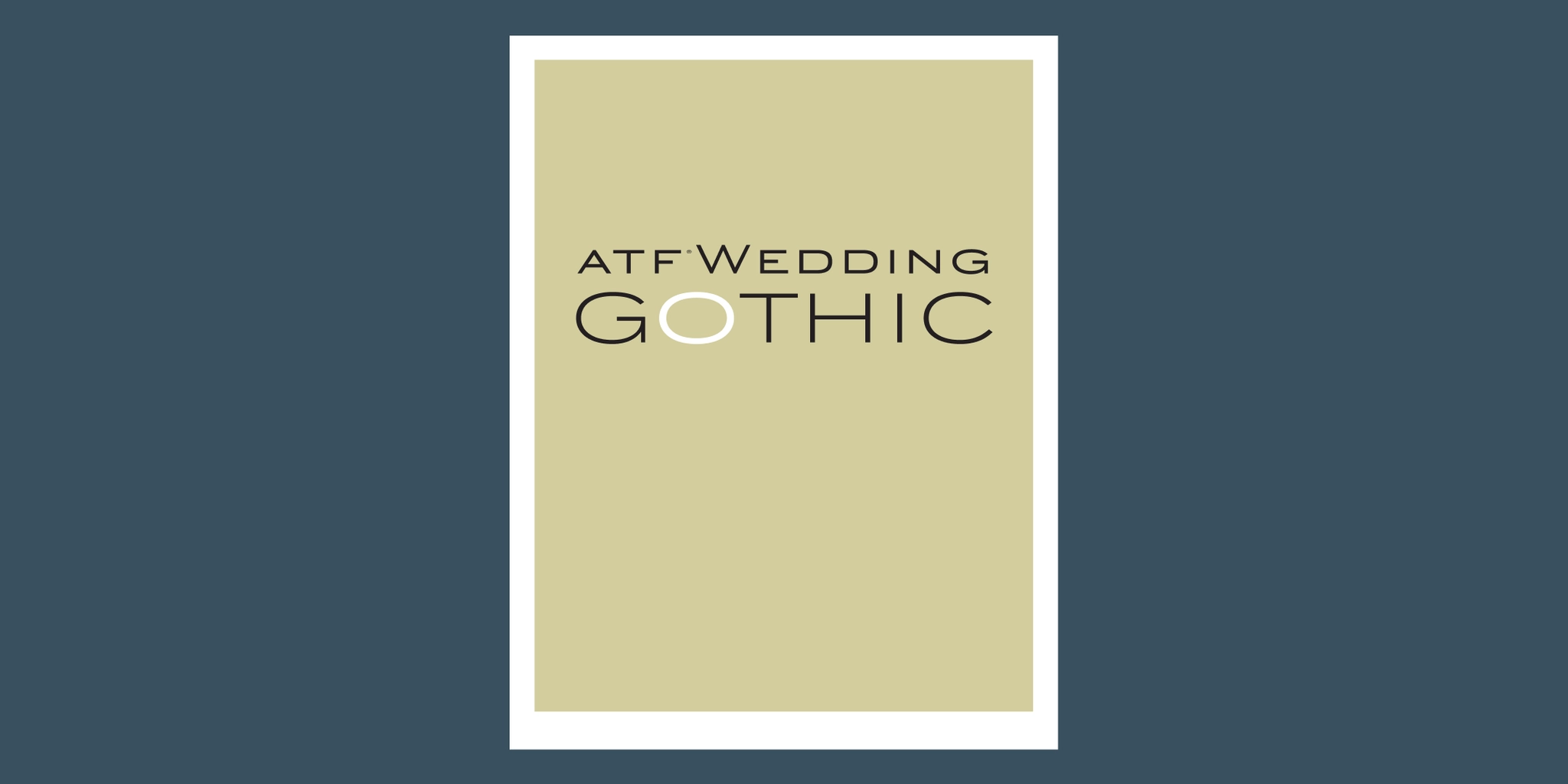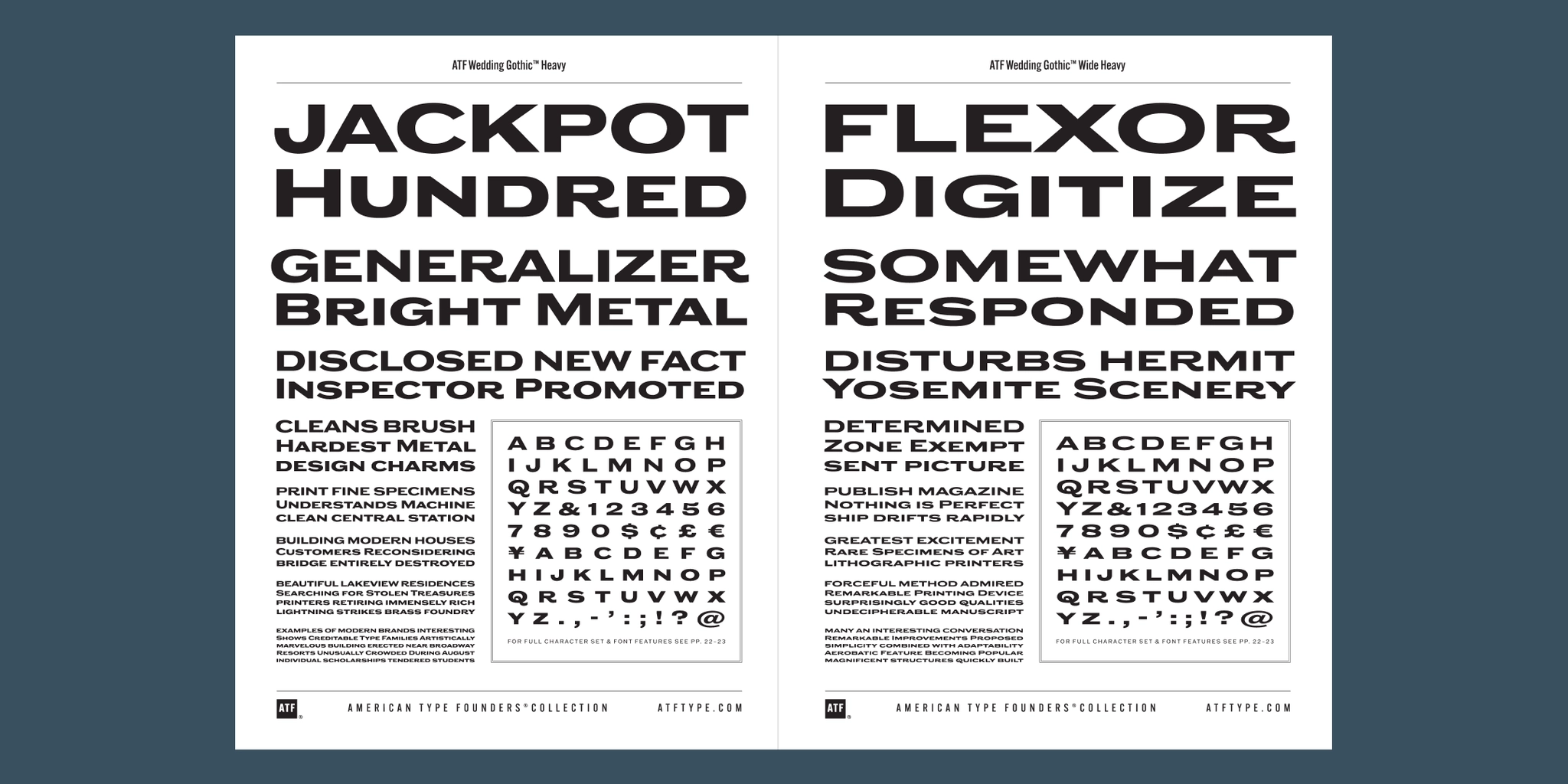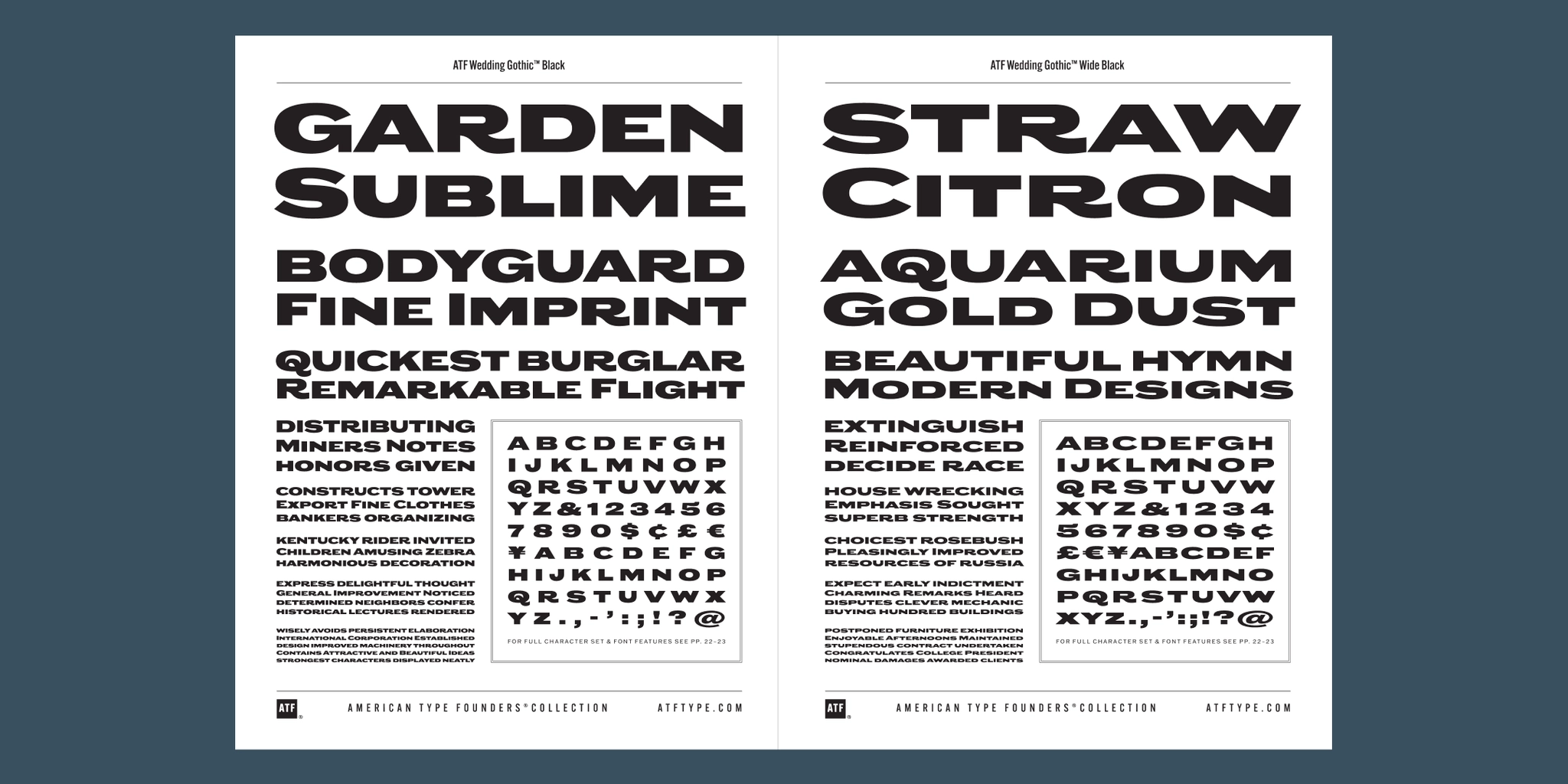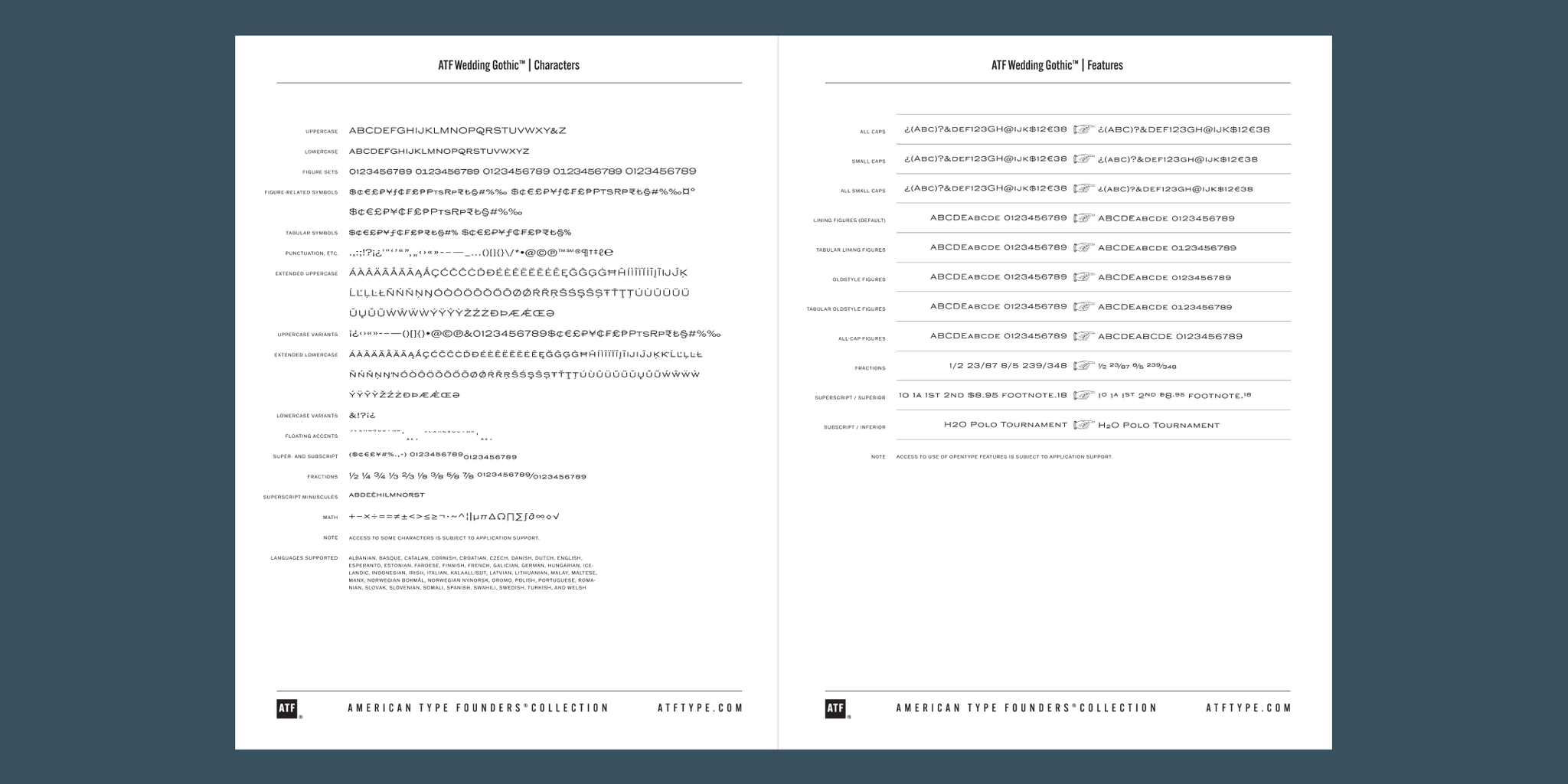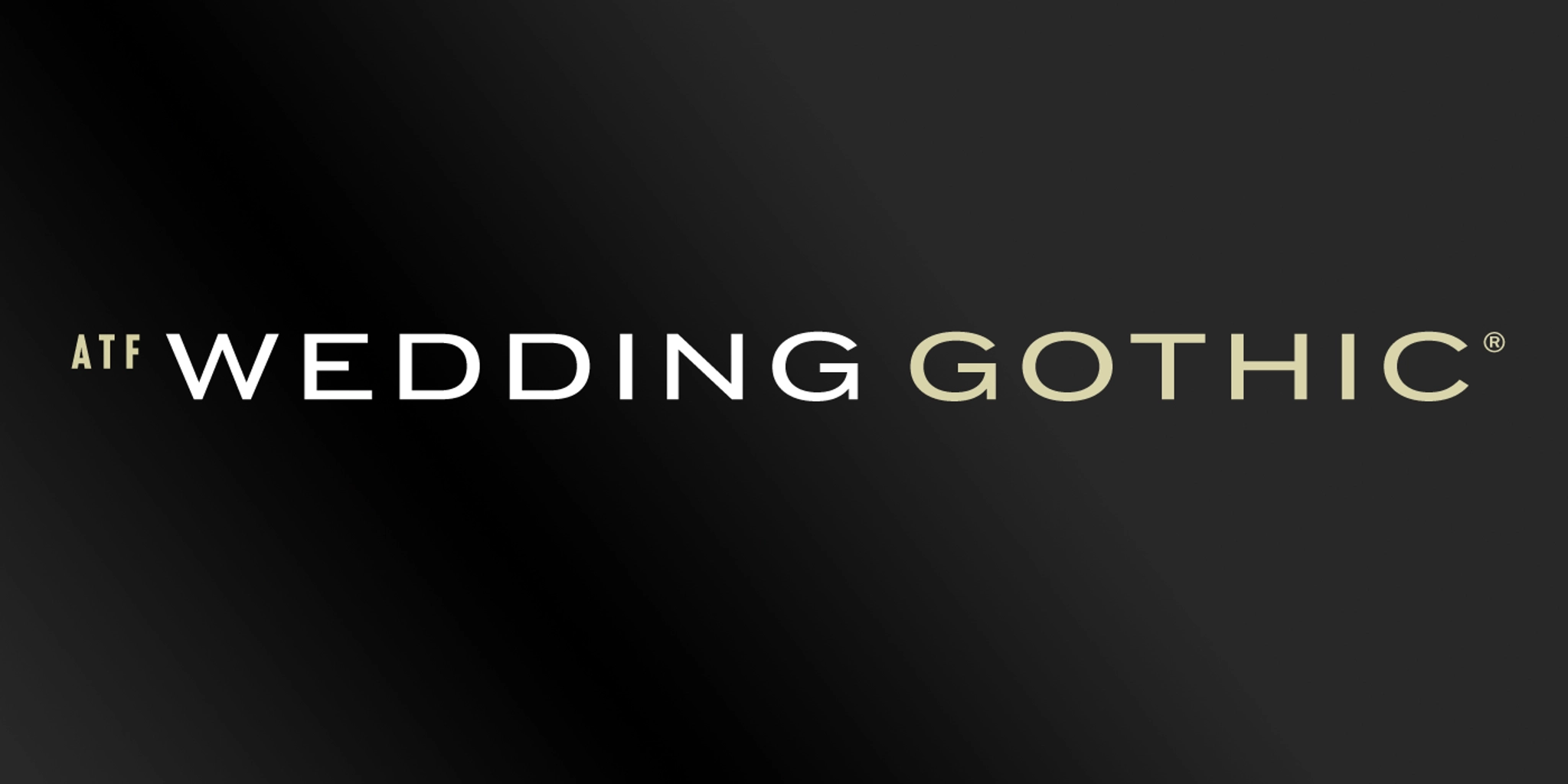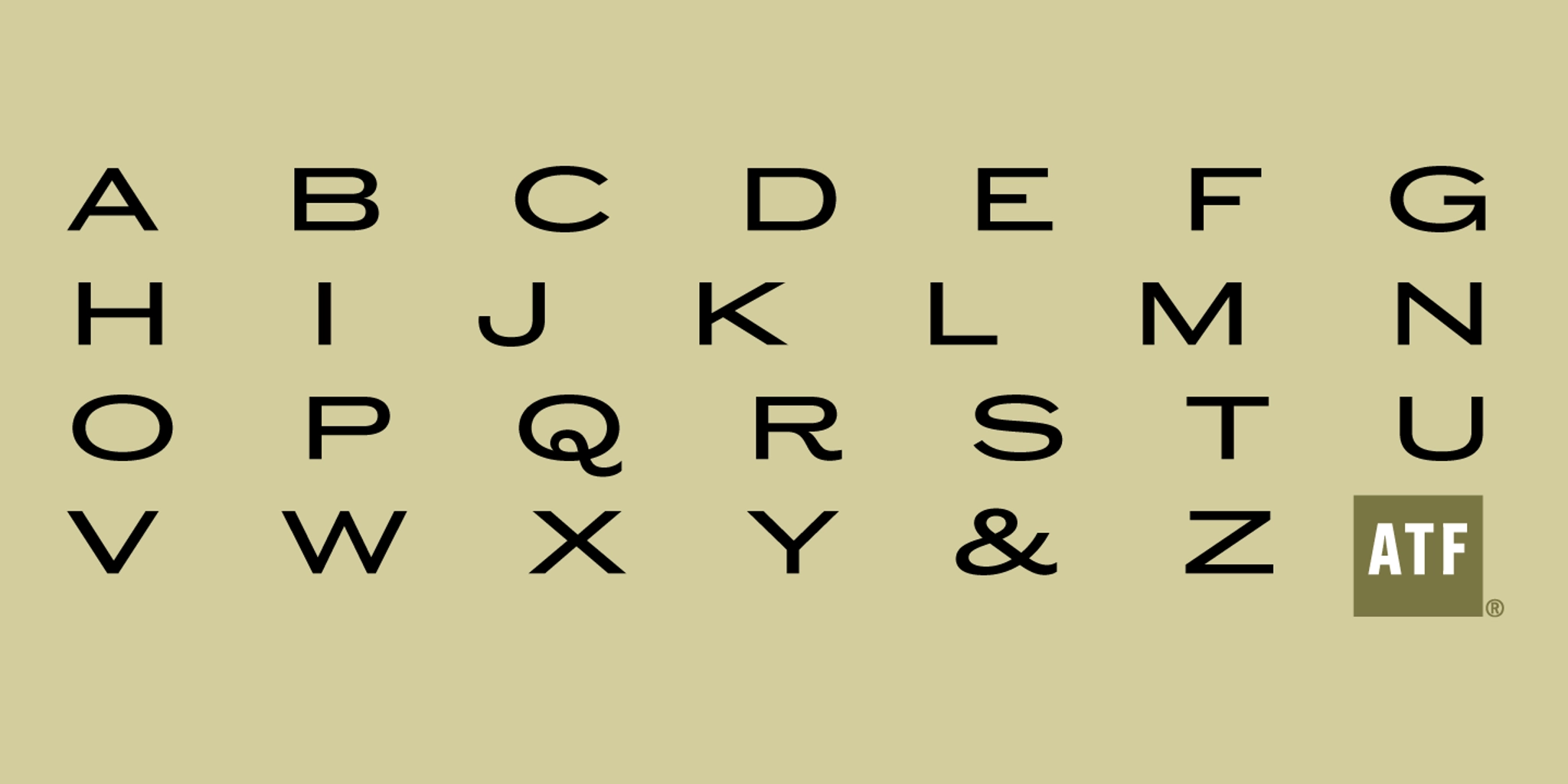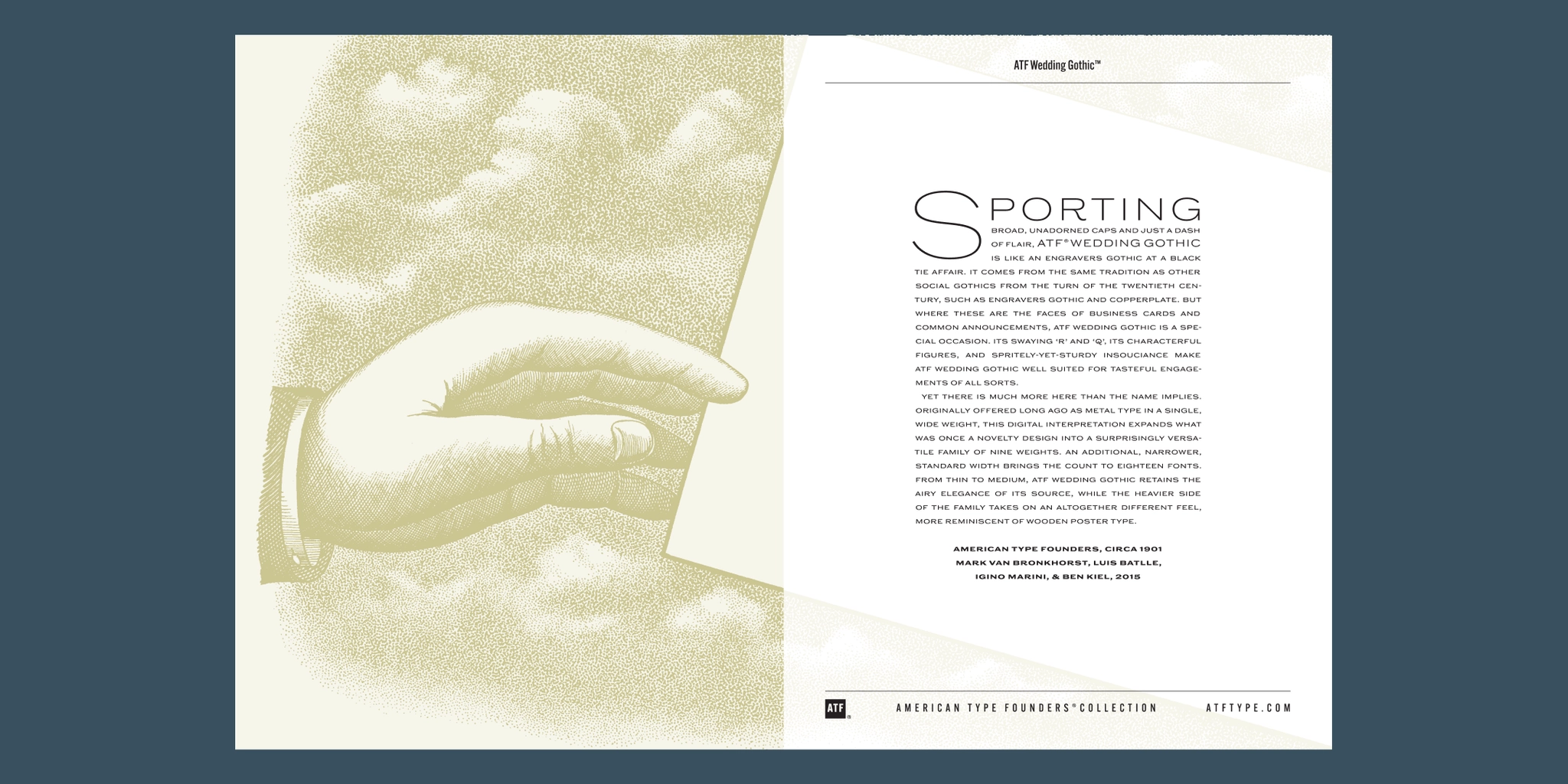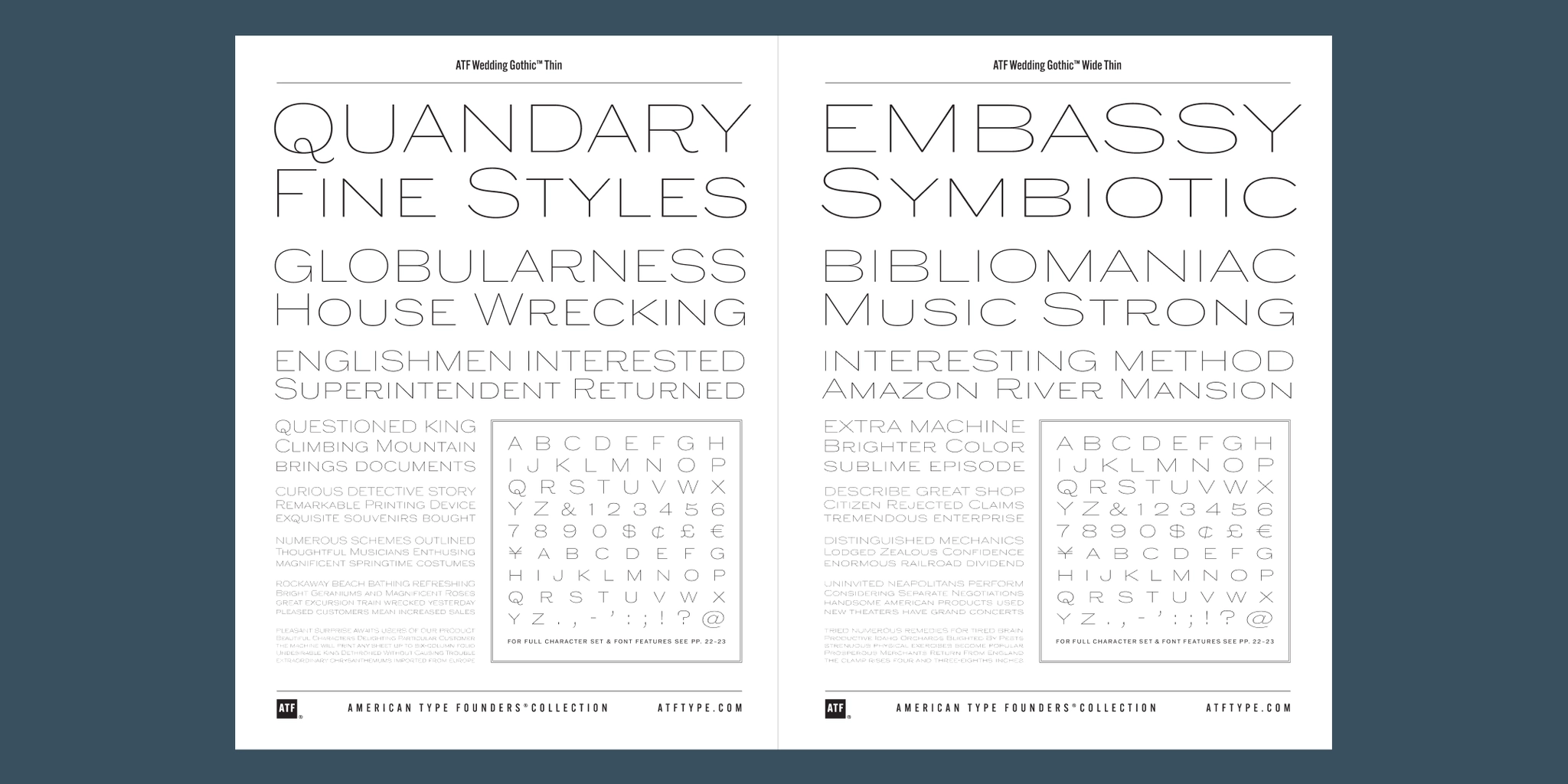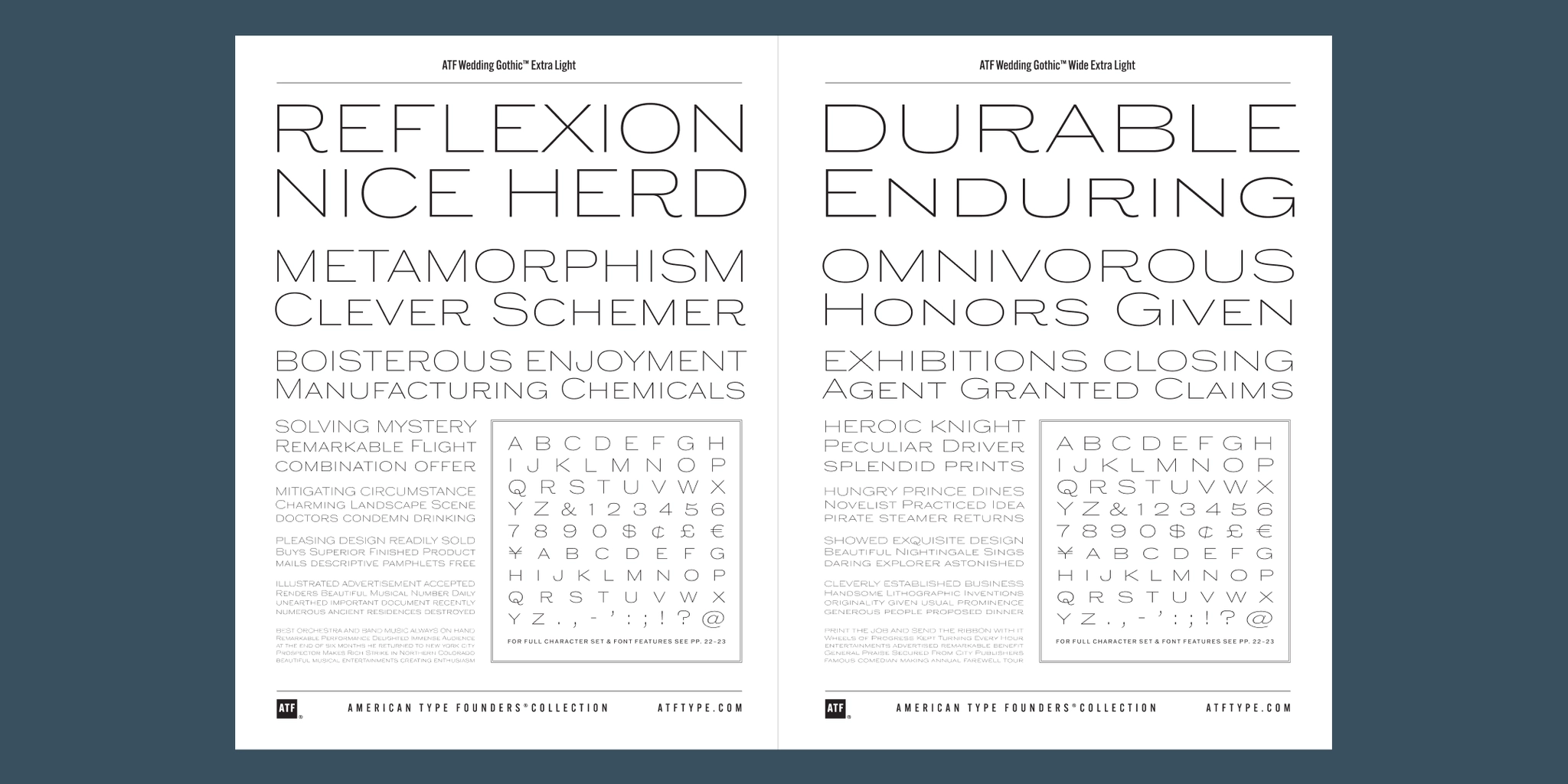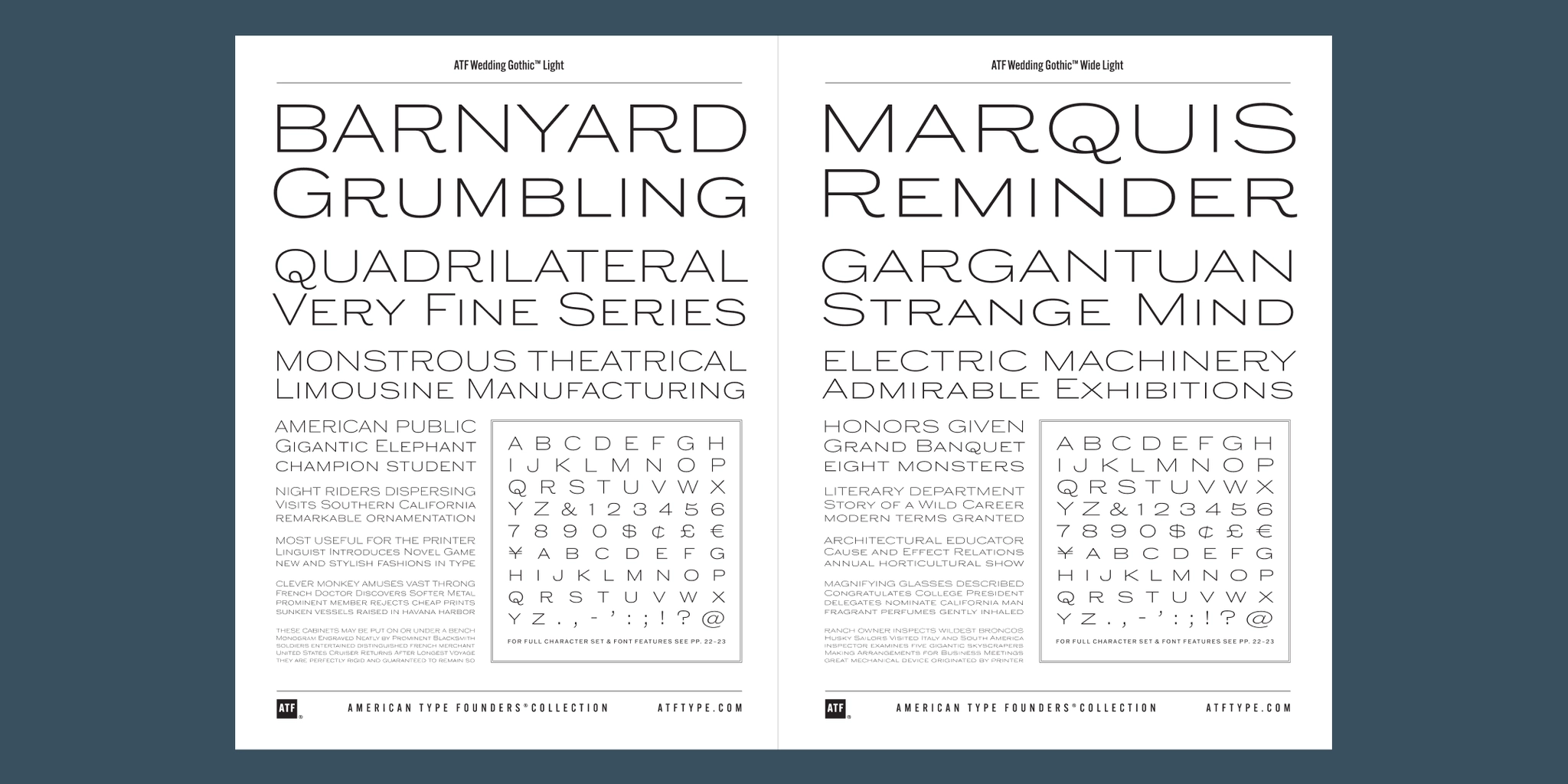
Wedding Gothic Font Family
Designed by Mark Van Bronkhorst, Luis Batlle, Igino Marini, and Ben Kiel.
1901 and 2015.
The American Type Founders collection was developed by Mark van Bronkhorst.
Wedding Gothic is an engravers gothic sans serif font family. It gives a vintage look and will take your typography from an airy elegance to a bombastic shout.
Sporting broad, unadorned caps and just a dash of flair, ATF Wedding Gothic™ is like an engravers gothic at a black tie affair. It comes from the same tradition as other social gothics from the turn of the twentieth century, such as Engravers Gothic and Copperplate. But where these are the faces of business cards and common announcements, ATF Wedding Gothic is a special occasion. Its swaying ‘R’ and ‘Q’, its characterful figures, and spritely-yet-sturdy insouciance make ATF Wedding Gothic well suited for tasteful engagements of all sorts.
Yet there is much more here than the name implies. Originally offered long ago as metal type in a single, wide weight, this digital interpretation expands what was once a novelty design into a surprisingly versatile family of nine weights. An additional, narrower, standard width brings the count to eighteen fonts. From Thin to Medium, ATF Wedding Gothic retains the airy elegance of its source, while the heavier side of the family takes on an altogether different feel, more reminiscent of wooden poster type.